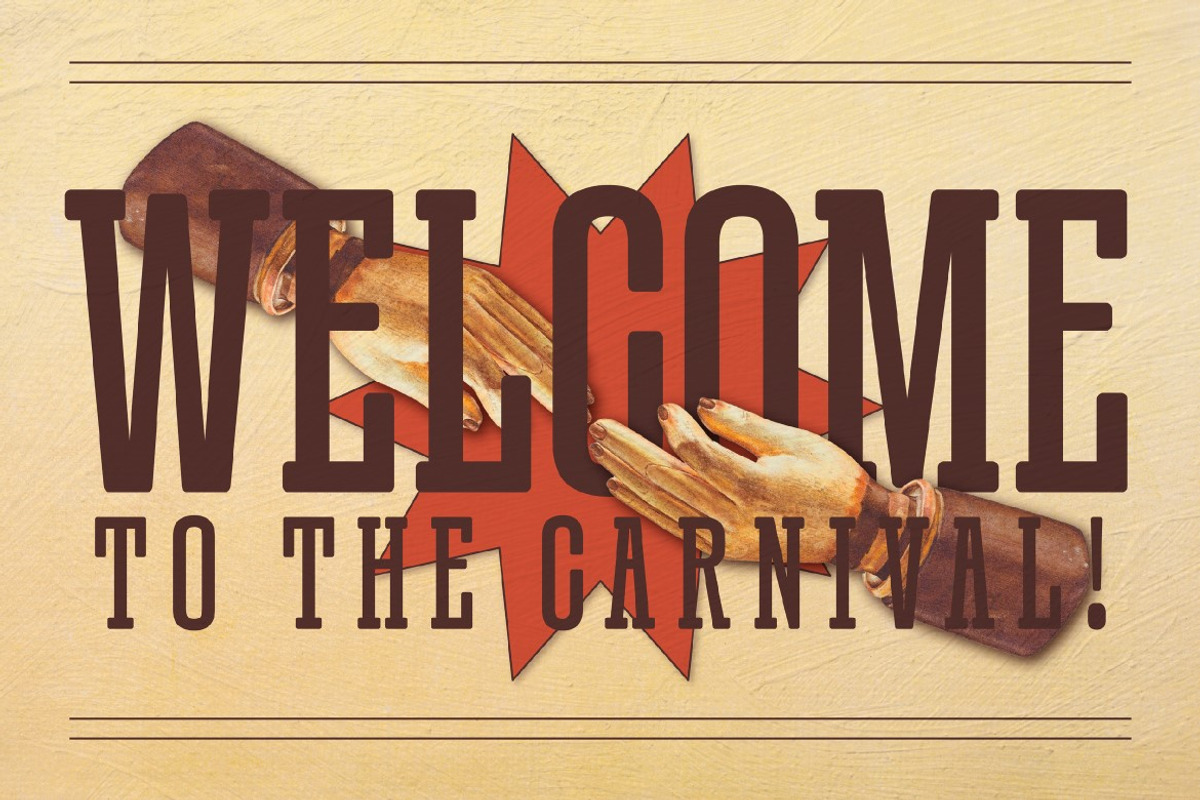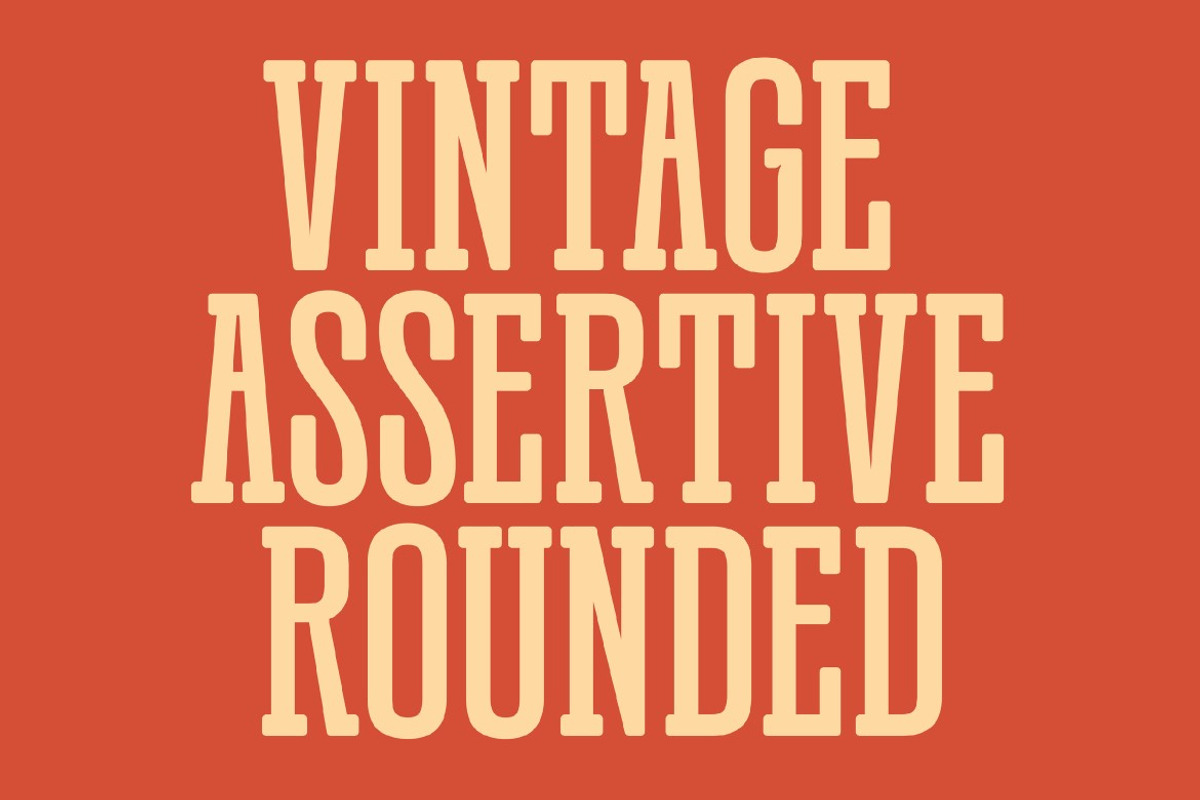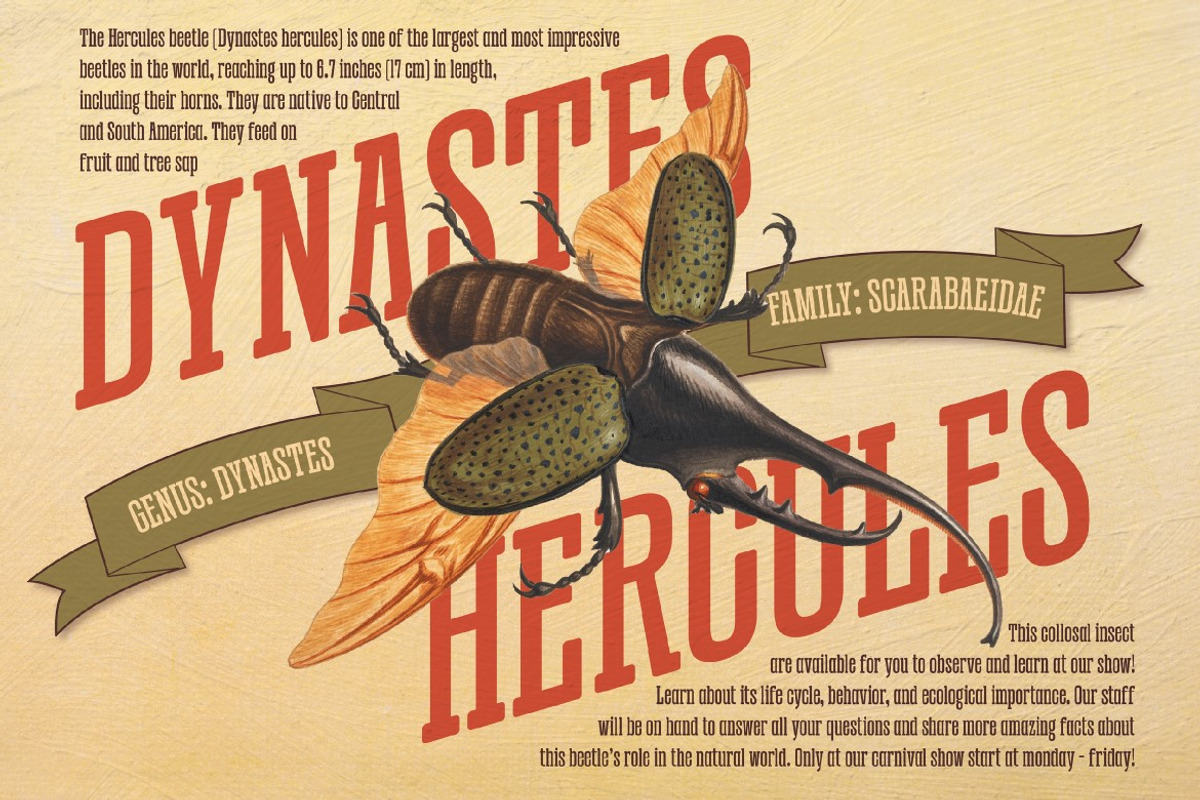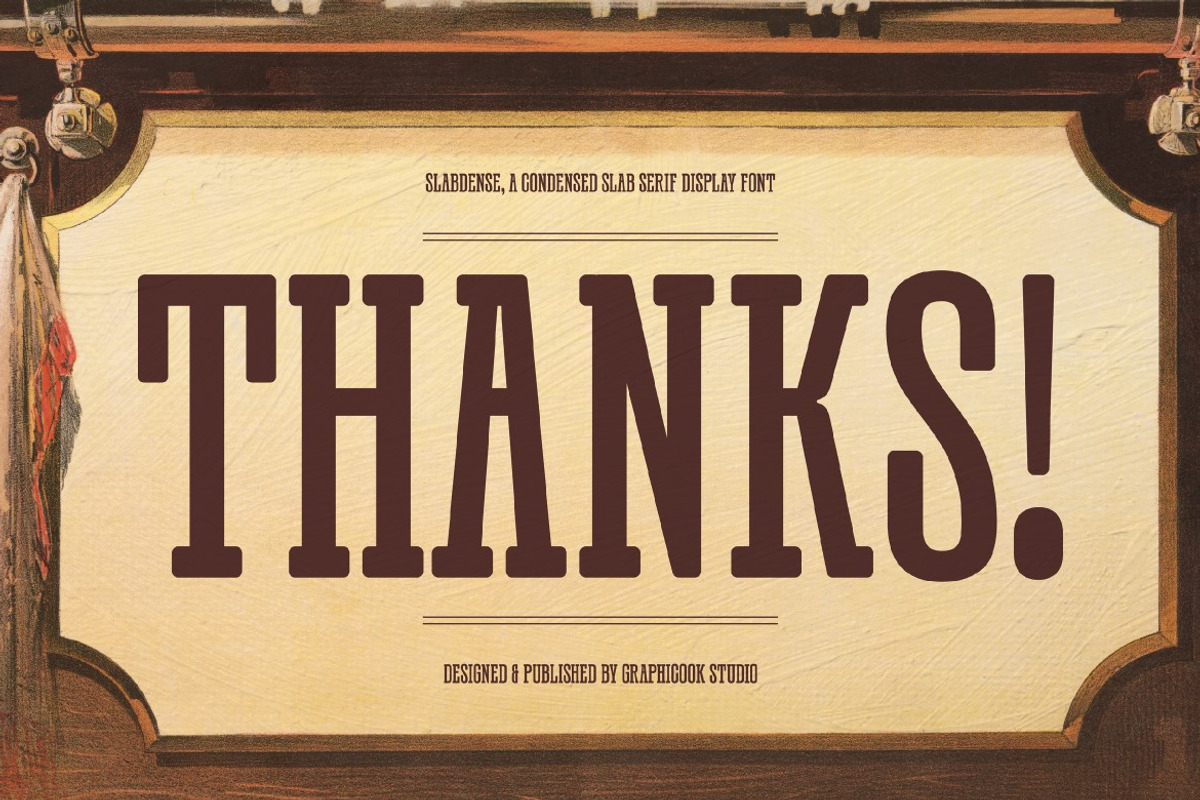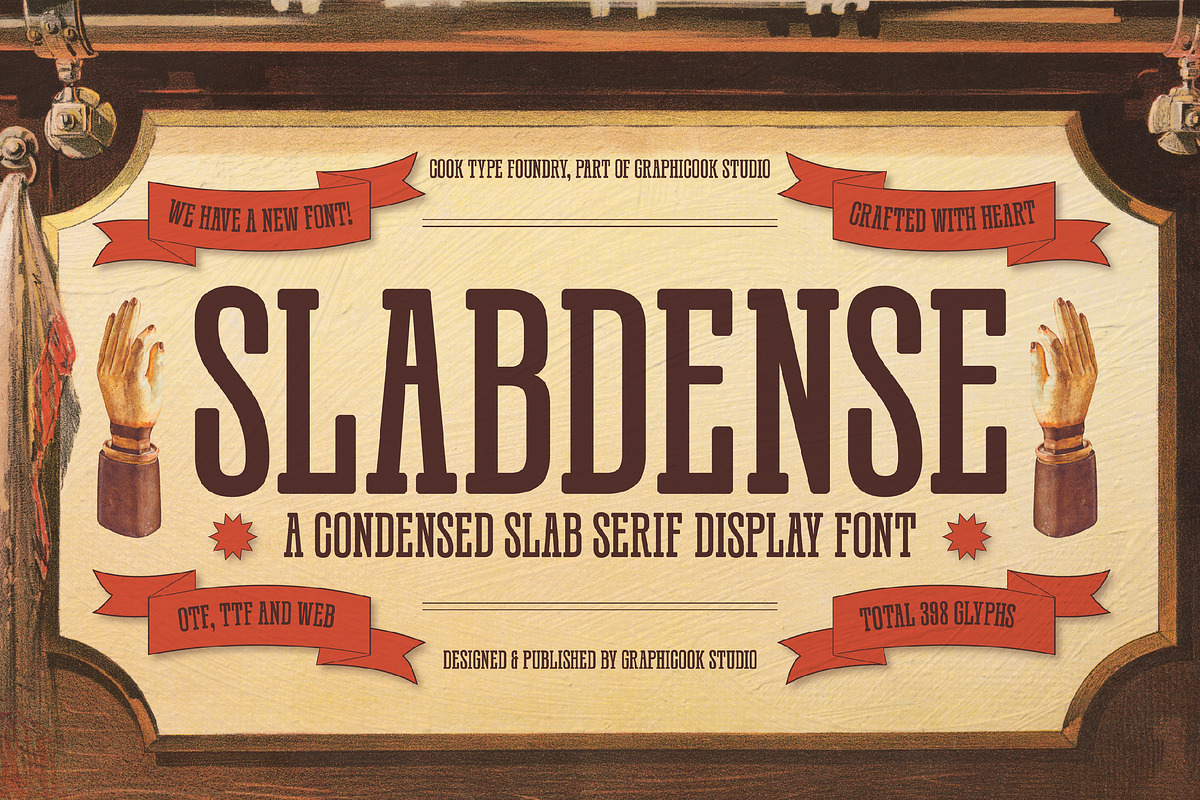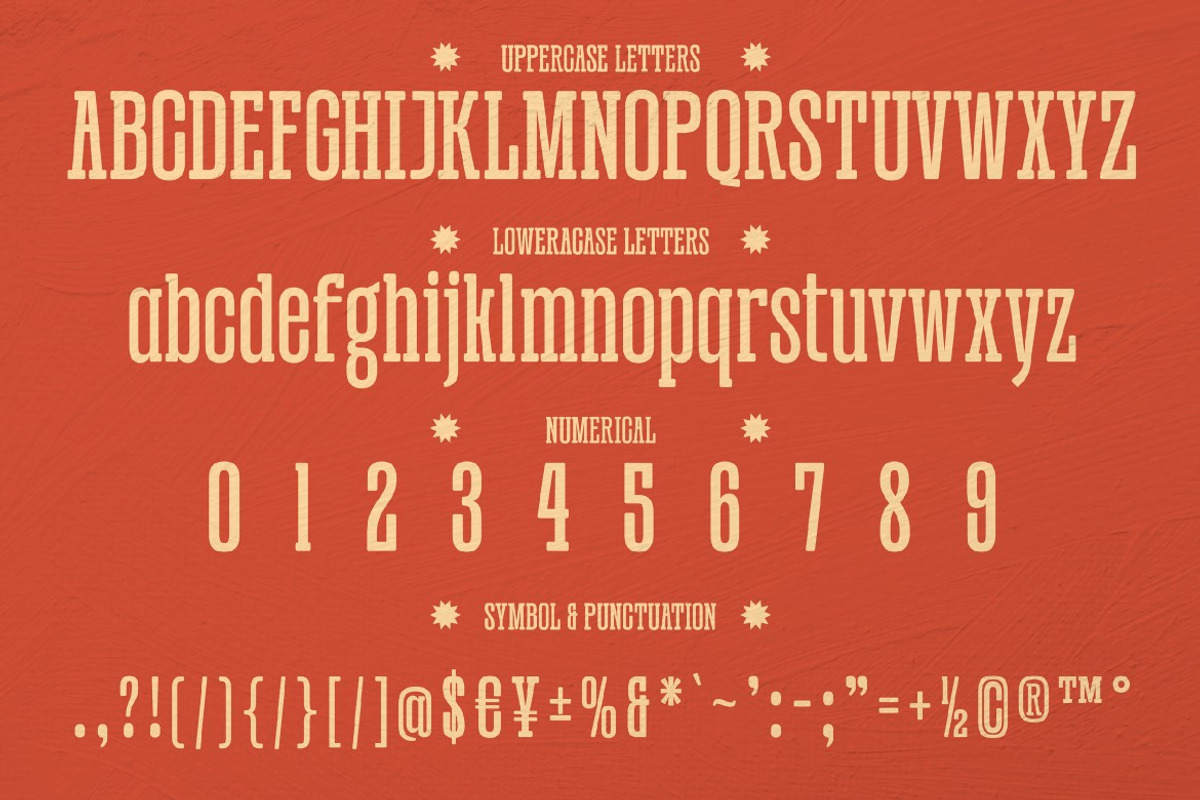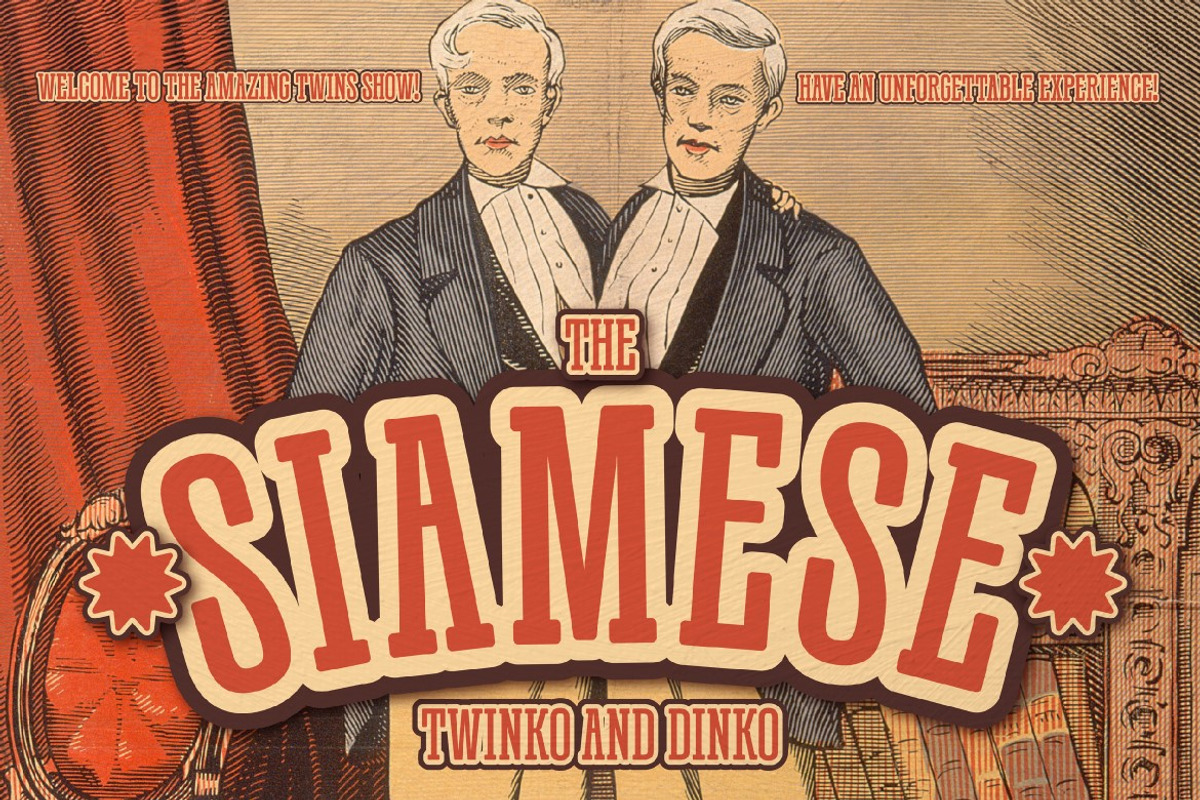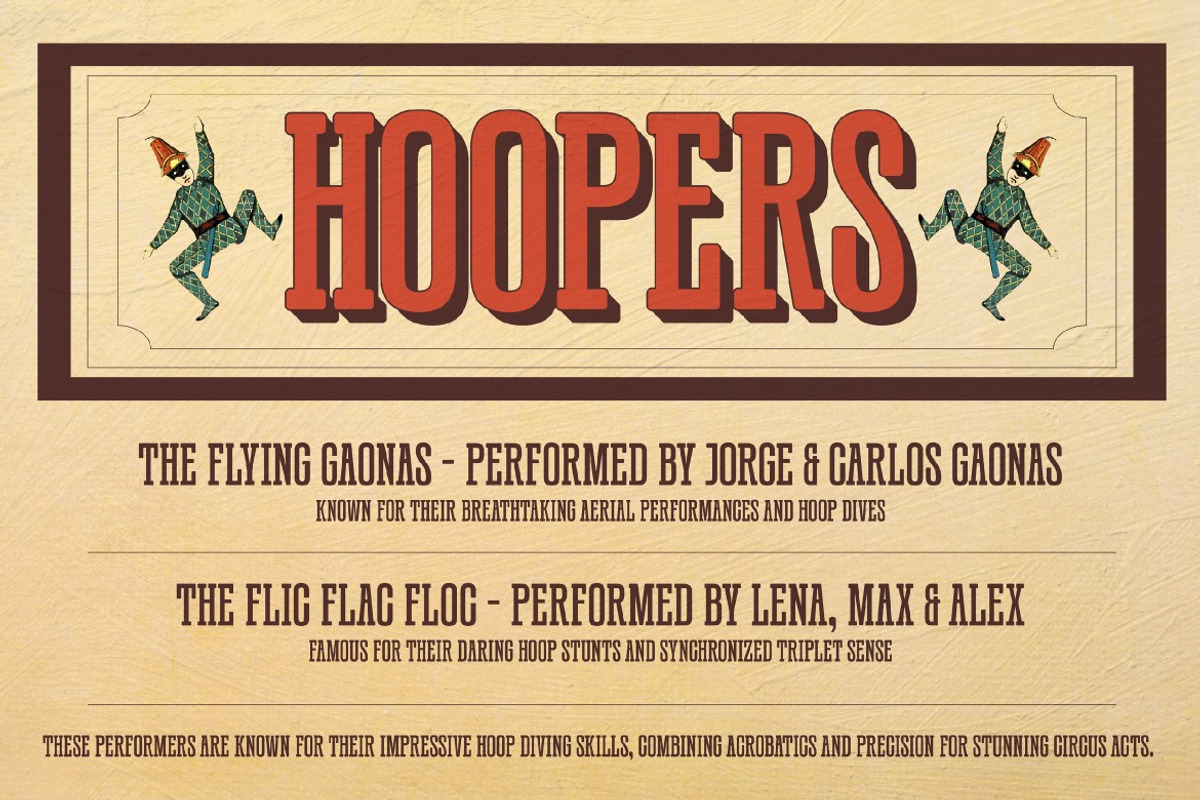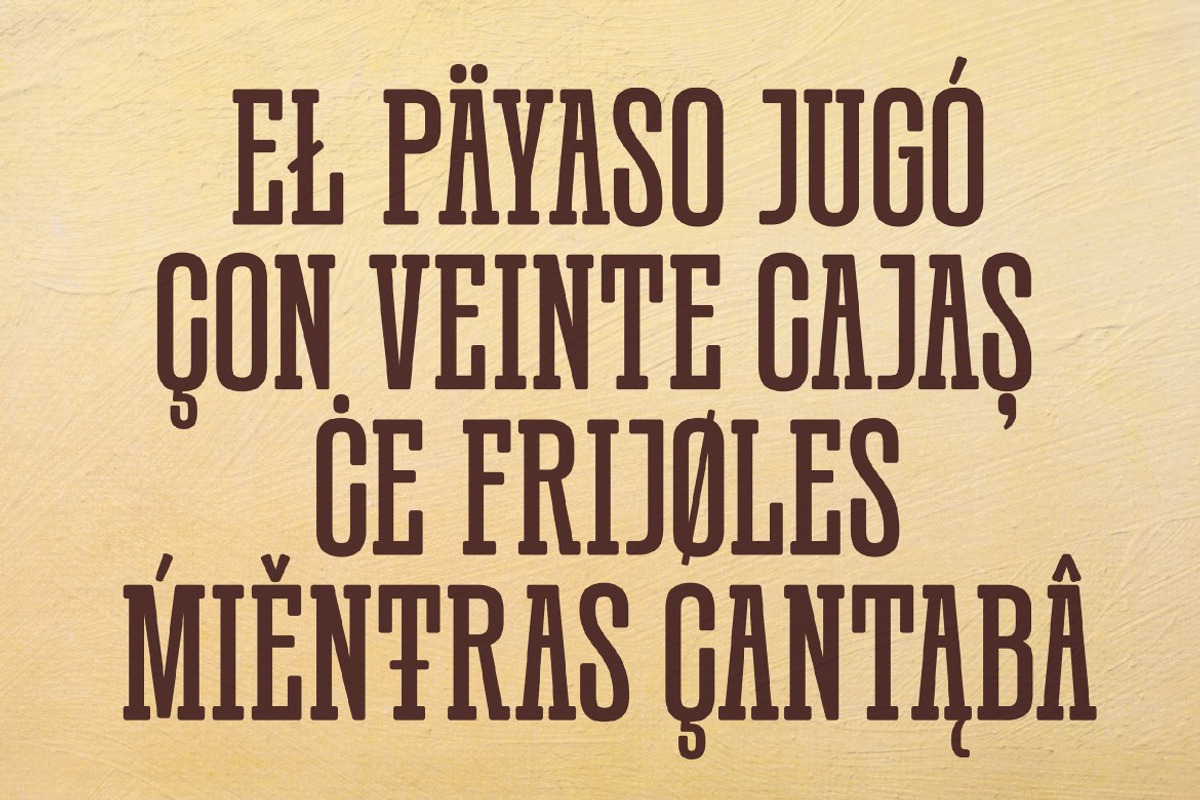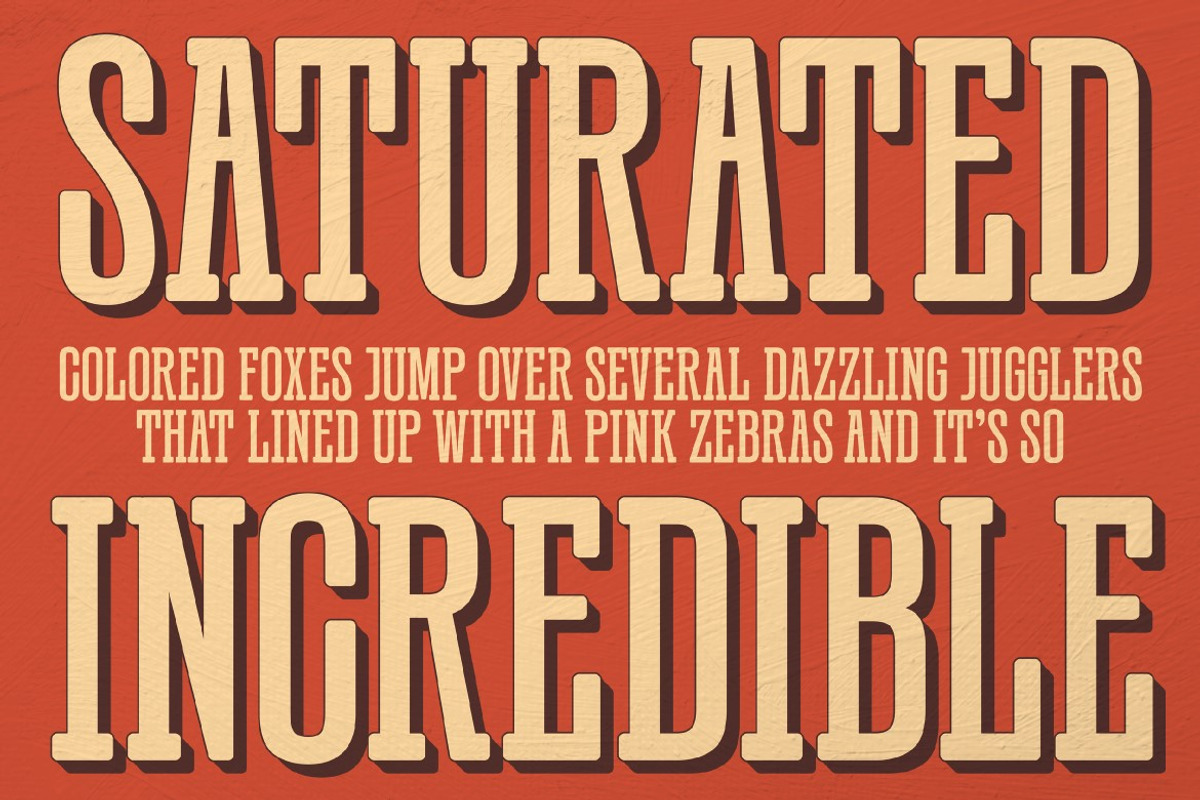
Slabdense
Slabdense is a unique blend of slab serif and condensed fonts, infused with a distinct Western theme. Perfect for design projects that evoke a vintage or old-fashioned mood
Slabdense is perfect for headlines, logotypes, magazines, packaging, quotes, movies, games, cover albums, book covers, and flyers, it's a perfect solution for creating eye-catching designs that stand out in any context.